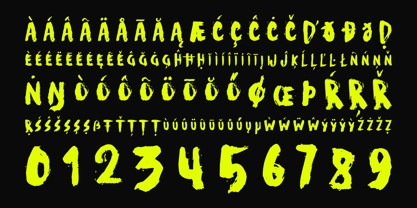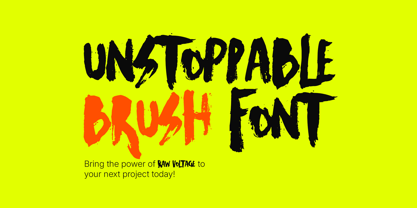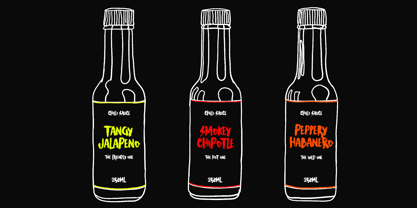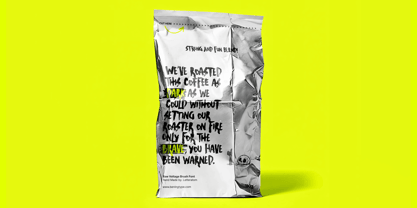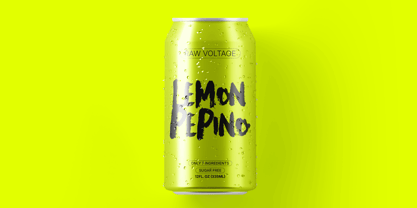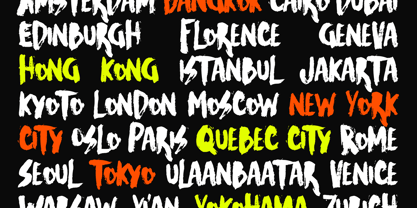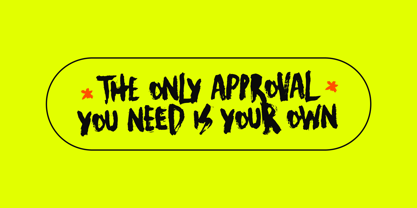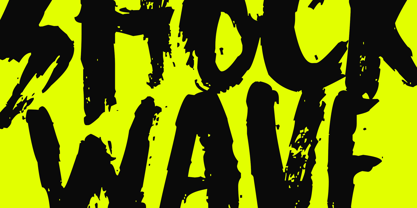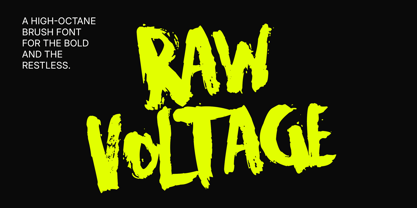
Raw Voltage
The Raw Voltage Font Family was designed by Eko Kurniawan and published by Atom. Raw Voltage contains 1 styles. More about this family
Raw Voltage is not just a font; it’s a jolt of pure visual electricity. Engineered for high-impact commercial designs, this typeface brings the unrefined, rebellious energy of authentic hand-painted brush strokes directly to your canvas.
Look closely at the characters—every stroke preserves the organic grit, raw fiber, and textured edges of real ink exploding onto paper. It is designed specifically for global brands, agencies, and creators who refuse to blend in.
From massive billboard headlines to high-end product packaging, Raw Voltage commands immediate attention.
Uncompromised Texture & Detail: Meticulously vectorized from real brush layouts to keep the authentic "rough ink" look perfectly crisp, even when printed on large-scale packaging or outdoor displays.
Fully loaded with an extensive character set backing Western, Central, and South-East European languages (Full Latin-1 coverage). Speak to a worldwide audience without losing your edge.
Unstoppable Versatility: As proven in our showcases, Raw Voltage looks exceptionally premium across various industries—from urban streetwear lines and high-budget gaming titles to artisan coffee bags, beverage cans, and hot sauce labels.
Perfect for High-Impact Projects:
• Product Packaging & Labels: Give your energy drinks, craft beers, or hot sauces a bold, unforgettable shelf presence.
• Streetwear Apparel: Create striking graphics for hoodies, t-shirts, caps, and skate decks.
Entertainment & Gaming: Command the screen with gritty cinematic titles, action game UI, and concert posters.
Atom is a line from Letteratom created by a young man from a small village in Indonesia named Eko Kurniawan. Since school, he was interested in graphic design and lettering, so both have become his hobbies since then. Starting from a sketch from paper and digitizing the glyphs one by one to create a font with his style. Focus on script fonts and brushes for your design needs.